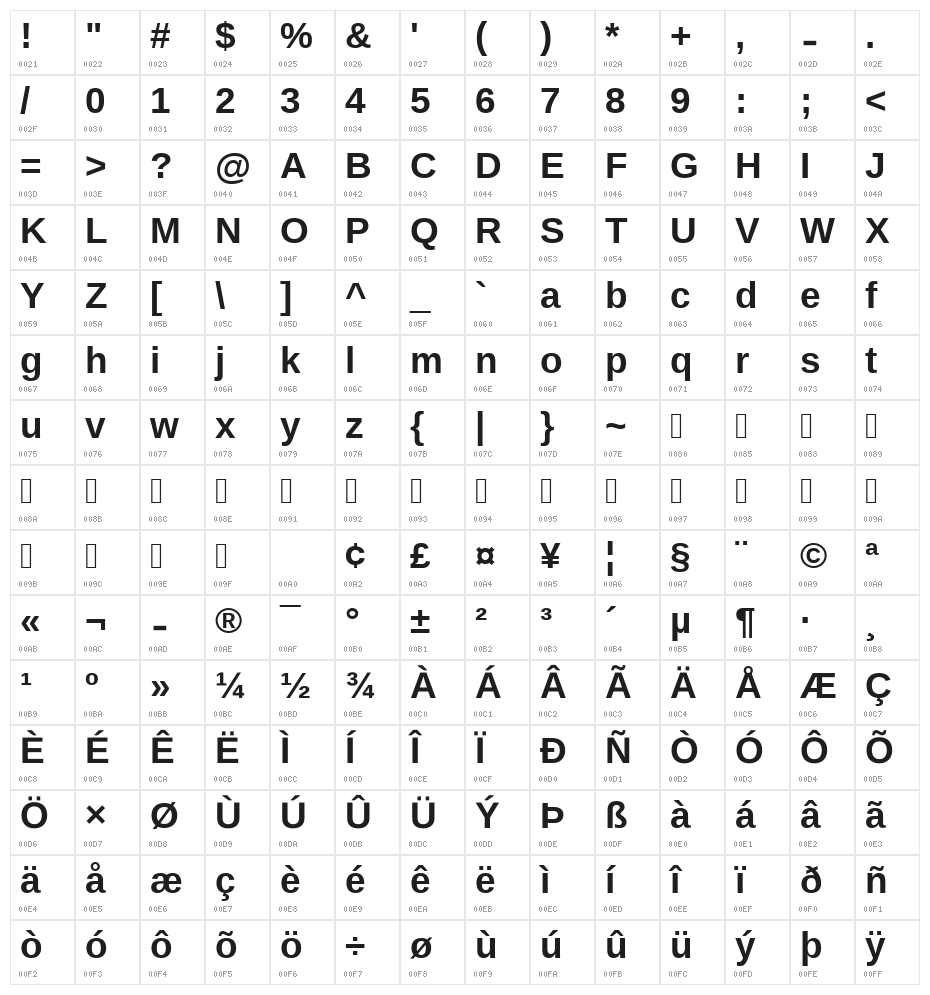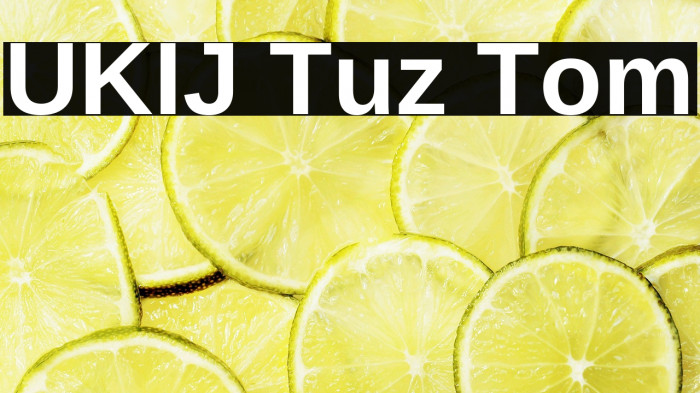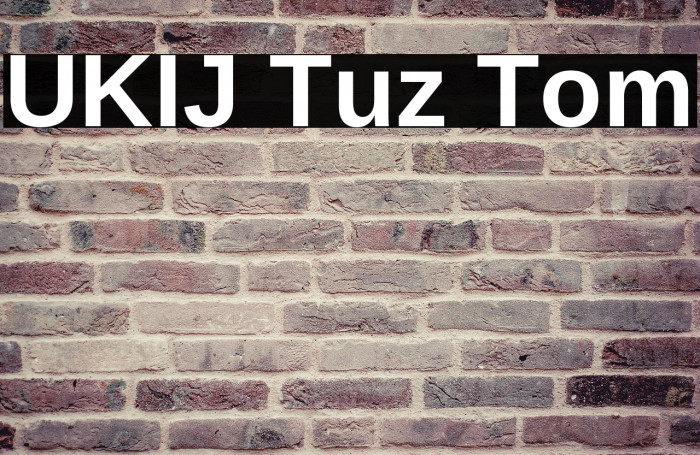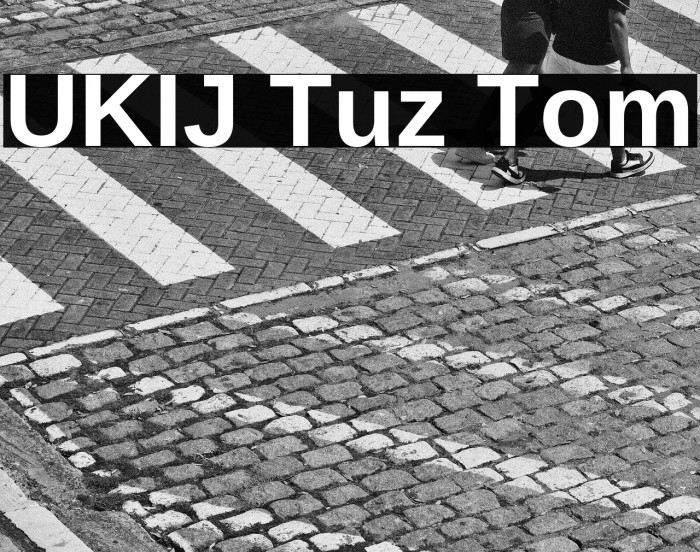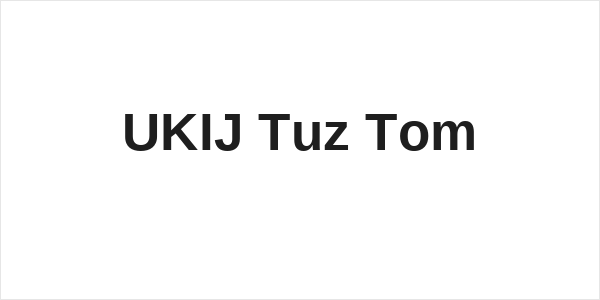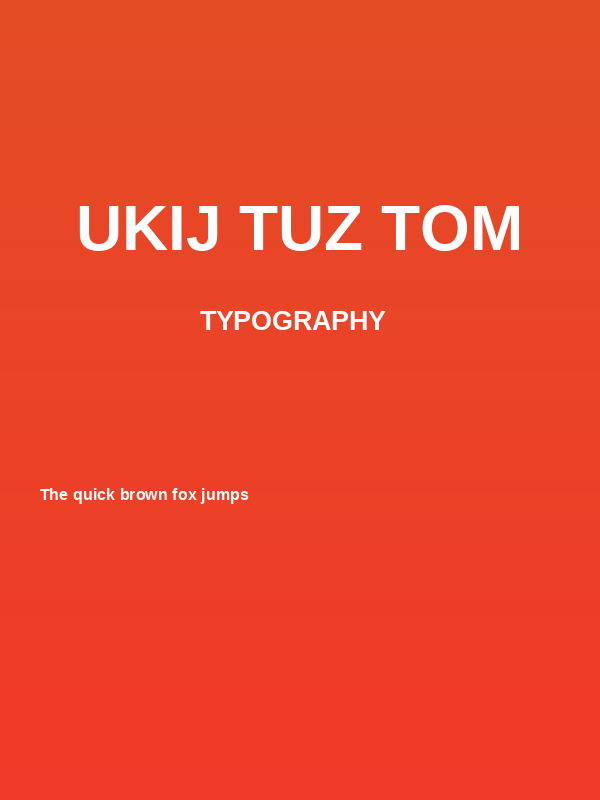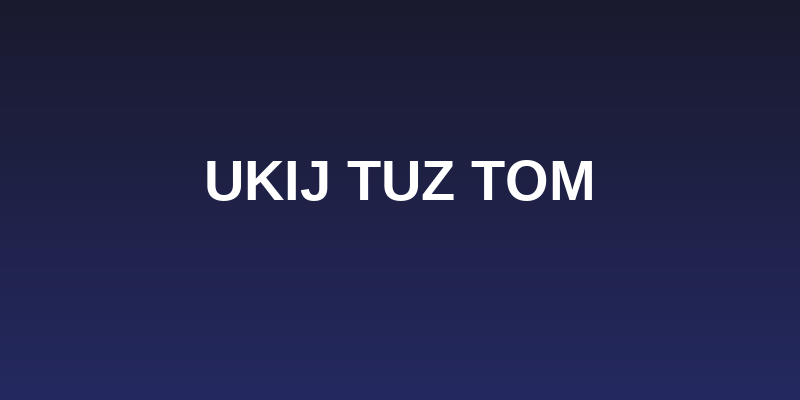
UKIJ Tuz Tom Font
UKIJ Tuz Tom Description
This font features a clean and modern sans-serif style, characterized by its bold and uniform stroke width. The letters are well-proportioned, with a slightly condensed appearance that enhances readability. The uppercase and lowercase letters maintain a consistent design, providing a cohesive look across different text sizes. The numerals are clear and distinct, making them suitable for both display and body text. Special characters are well-integrated, ensuring versatility in various applications. Overall, this font exudes a professional and contemporary aesthetic, making it ideal for a wide range of design projects.